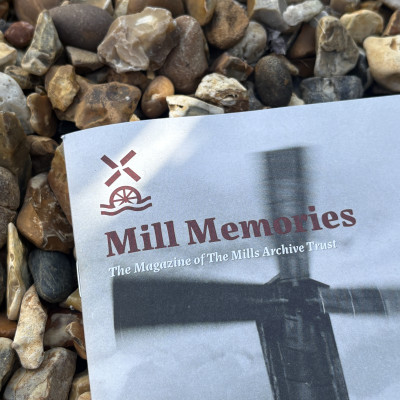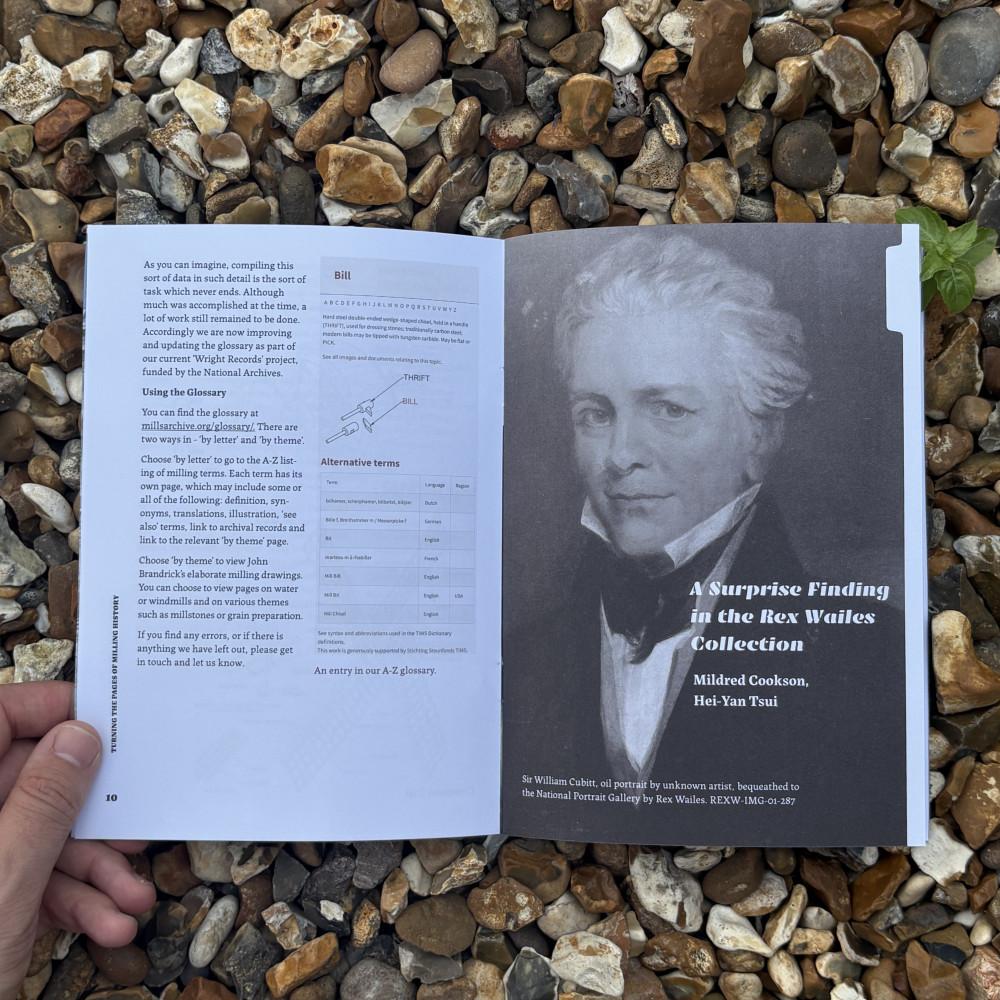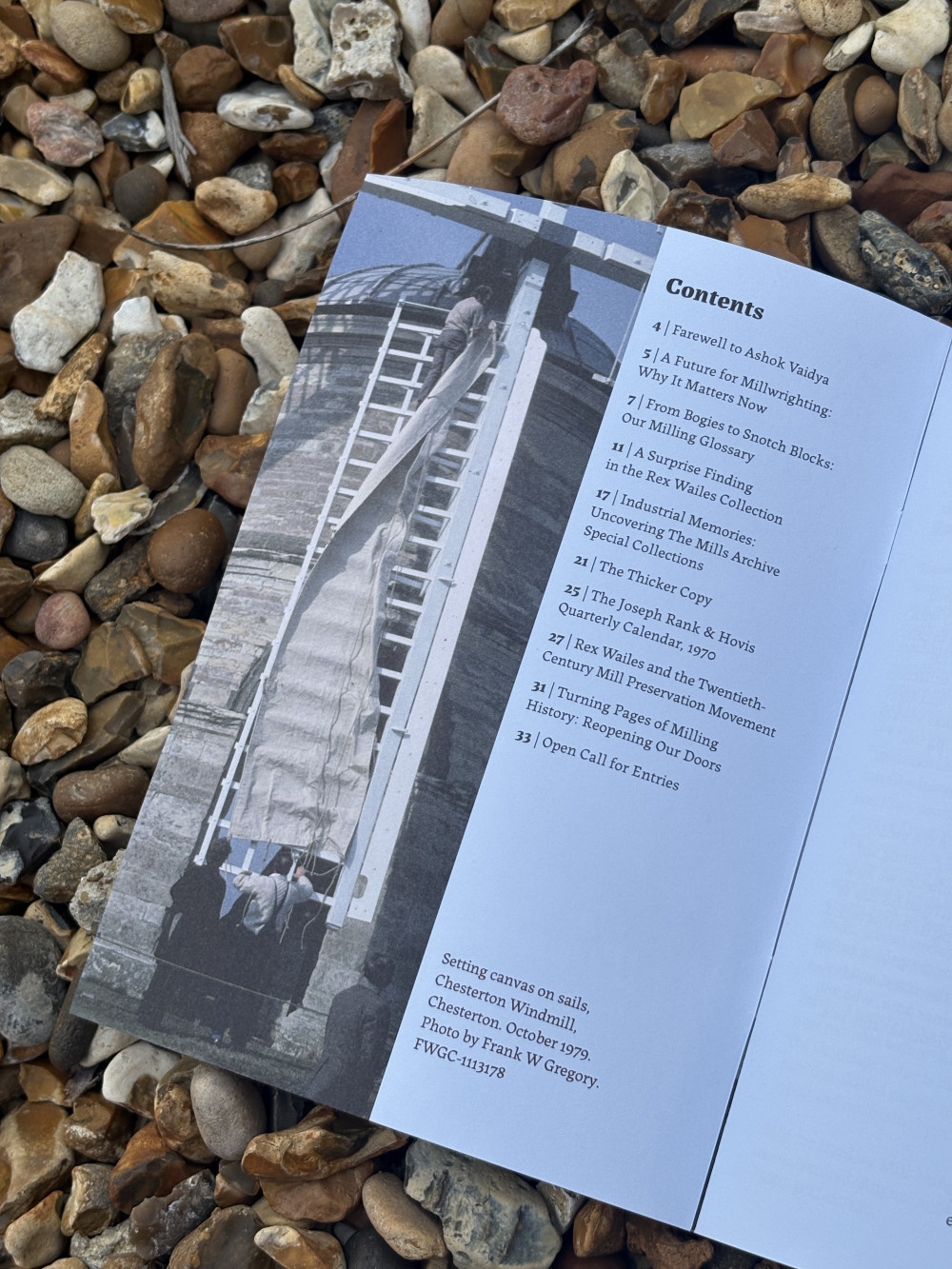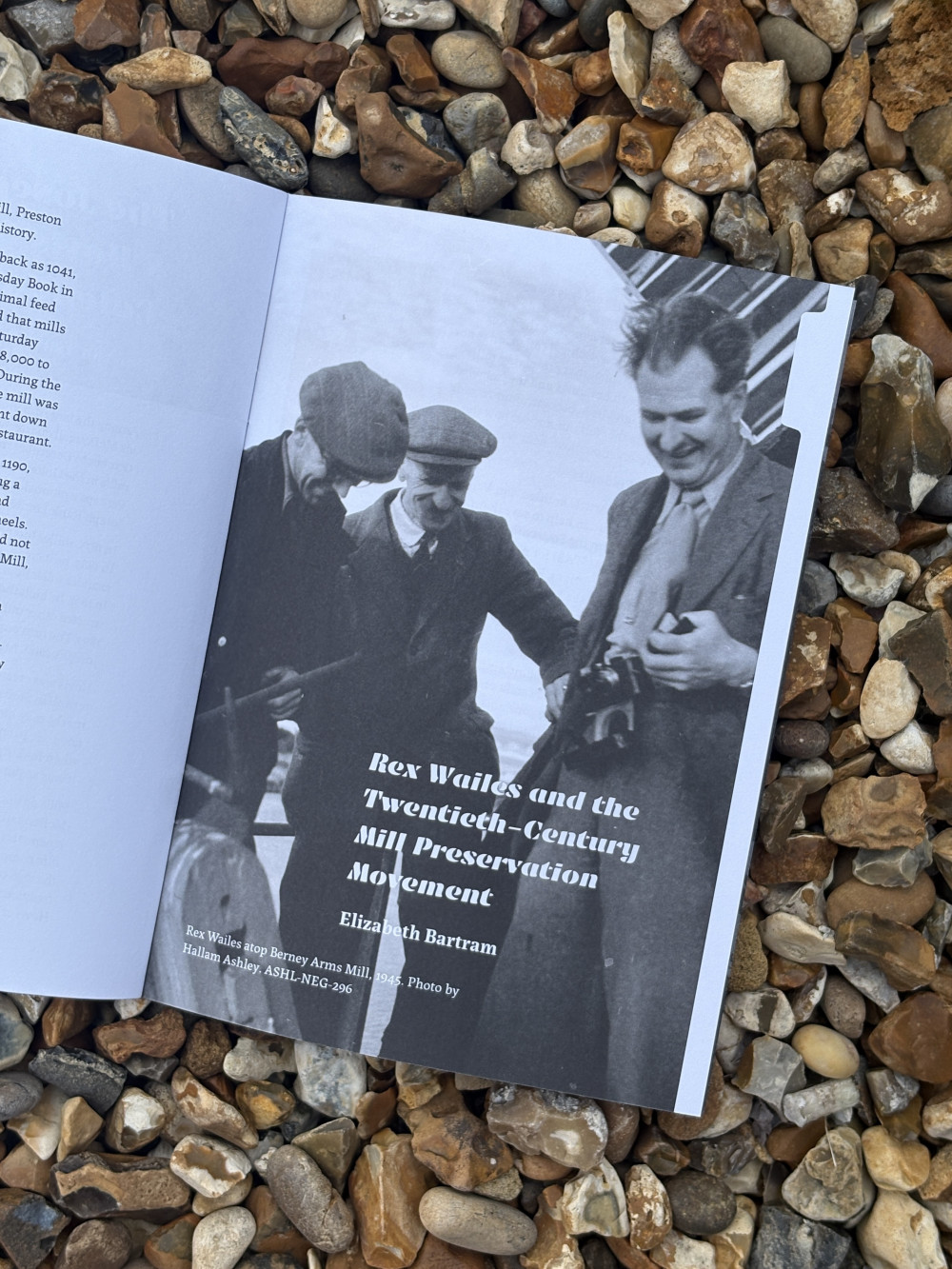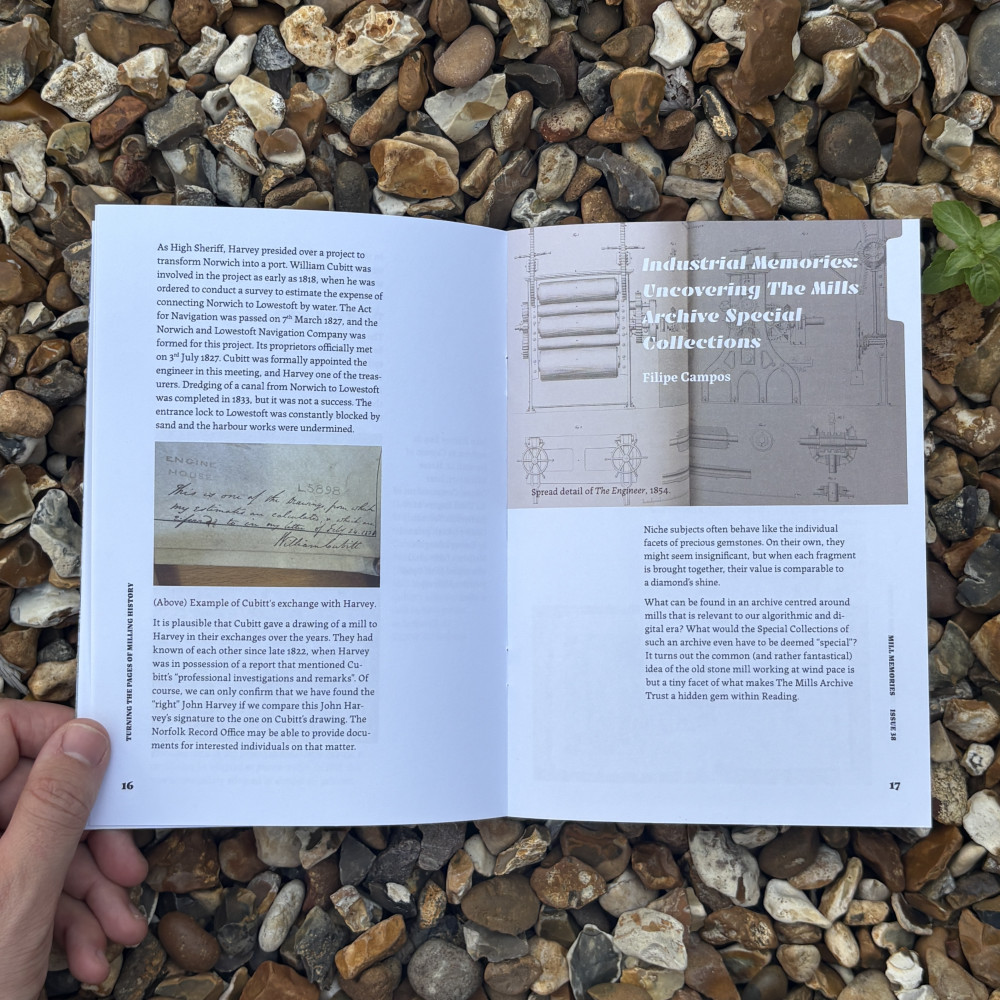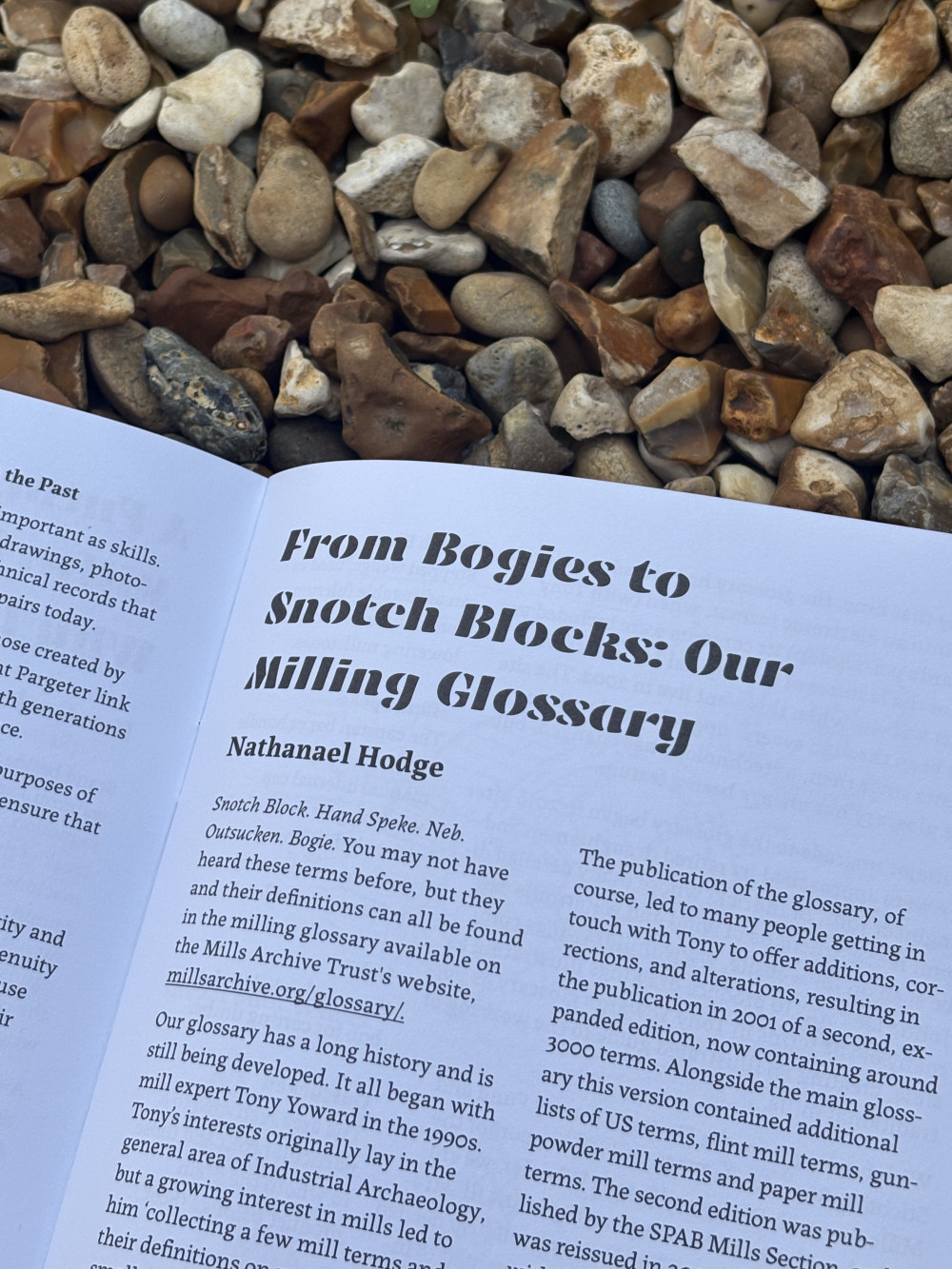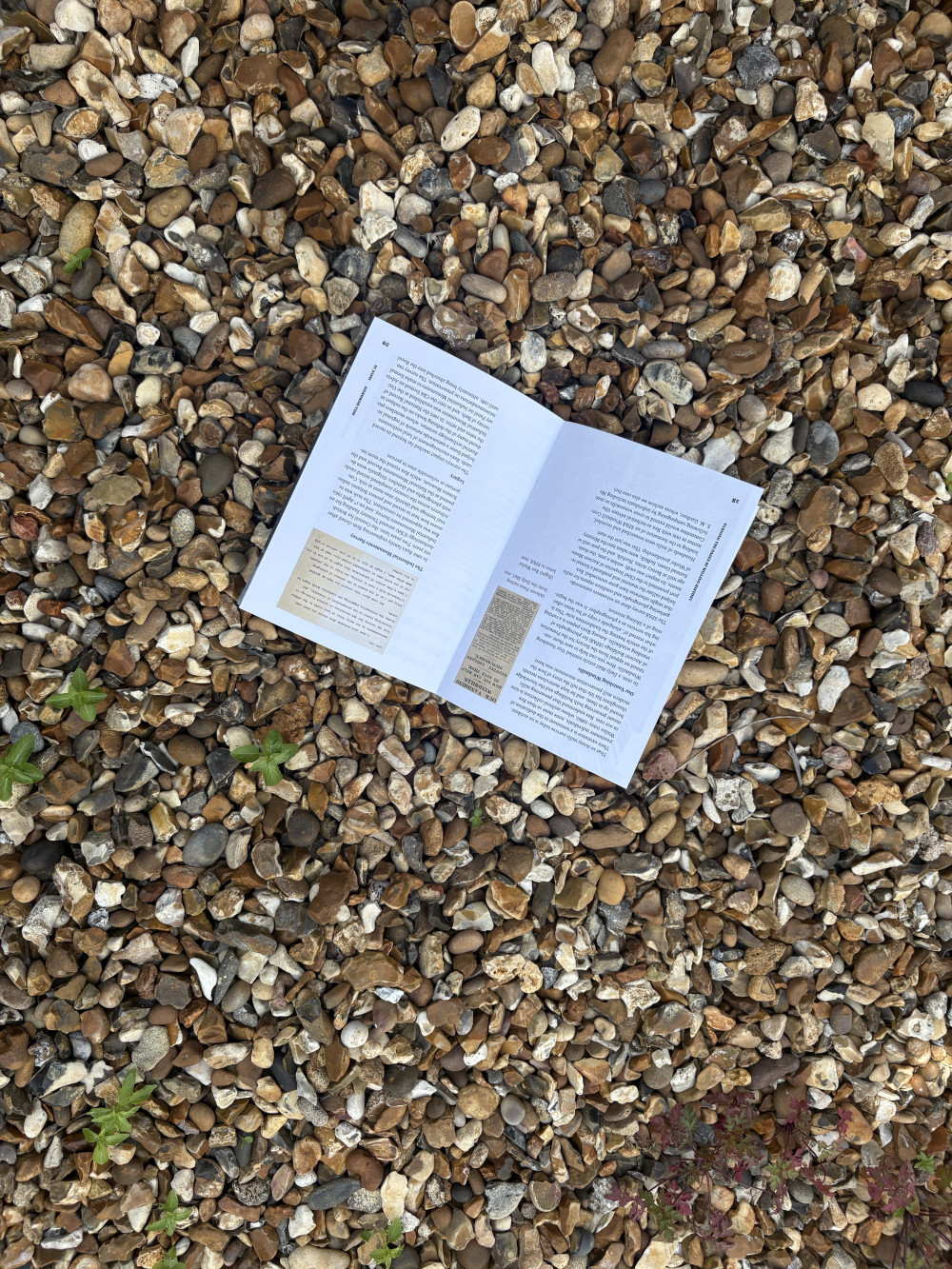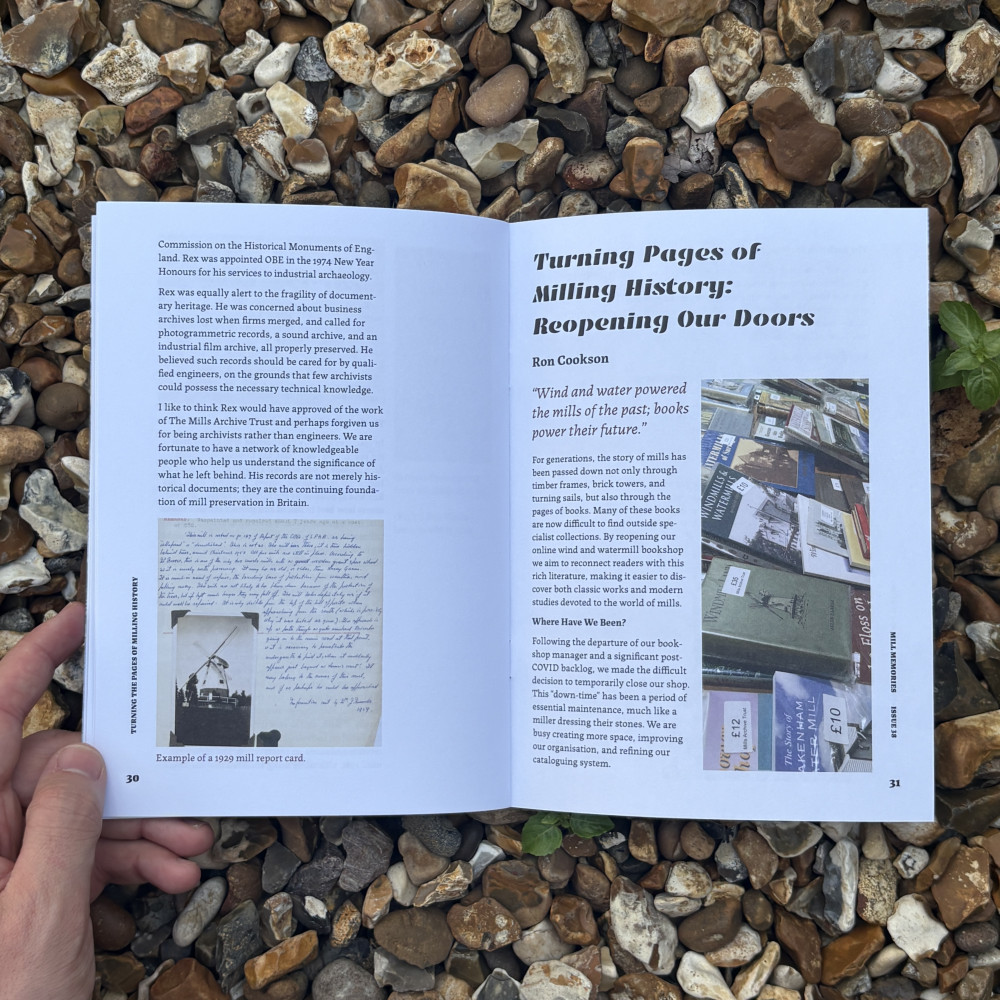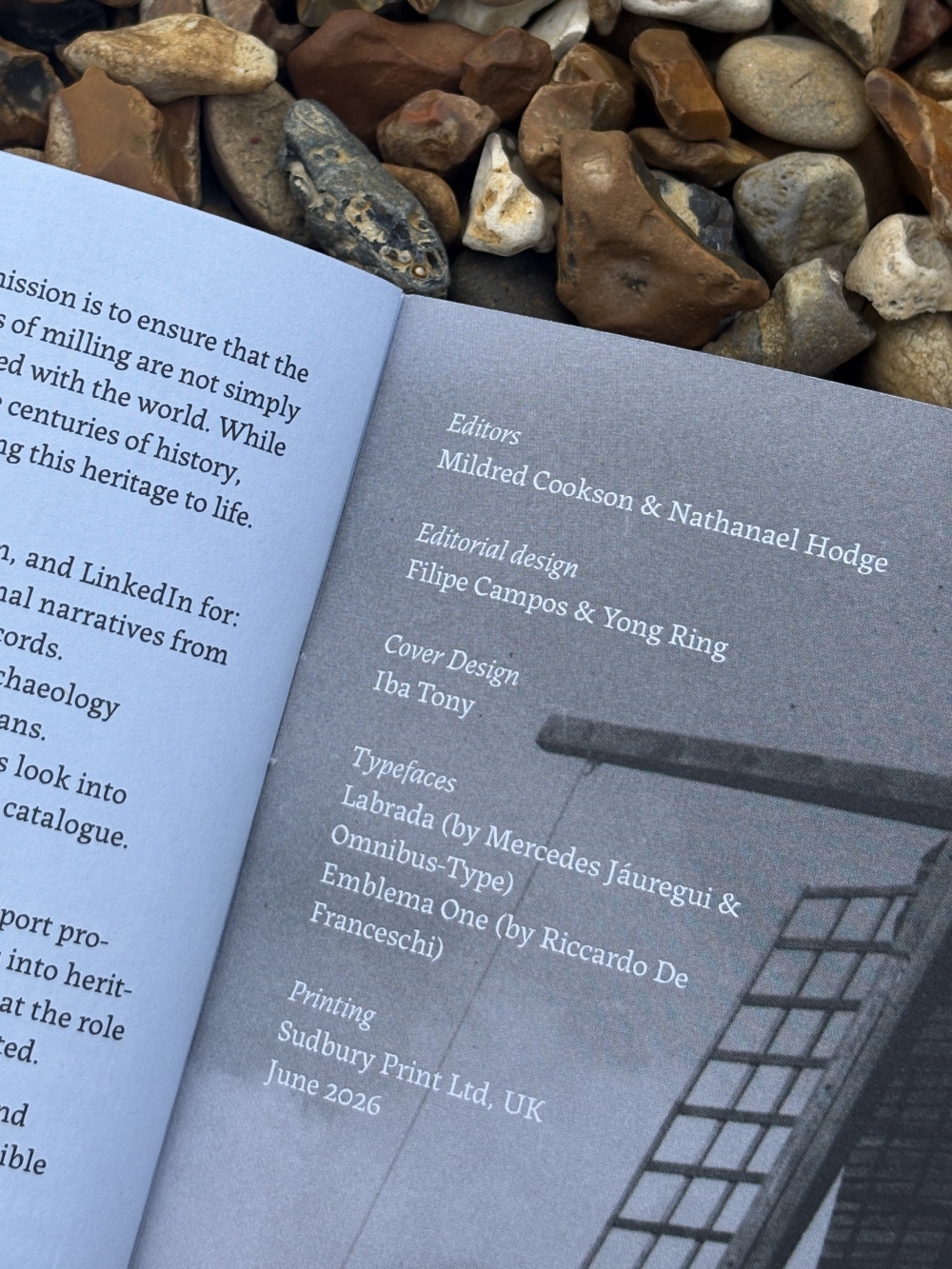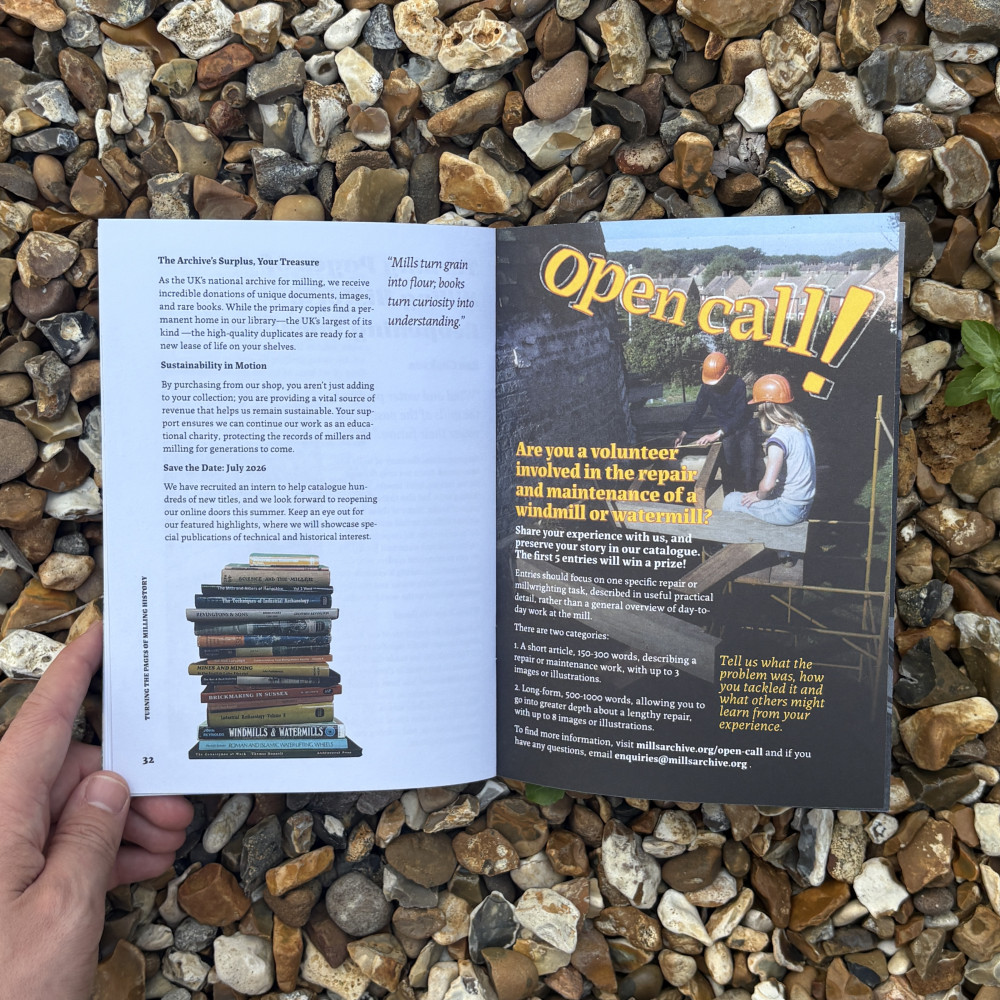
Mill Memories Magazine
Mill Memories is the seasonal magazine published by The Mills Archive Trust, an archival institution specialised on the preservation of milling history and future of renewable energy. Located in Reading, the archives were looking for the redesign for their upcoming 38th issue, released in June 2026.
Alongside Yong Ring and their in-house designer, Iba Tony, the brief asked for a fresh look to their existing design, while maintaining continuity with their established format and readership experience.
The new design keeps the strong photographic character of the magazine - filled with its typical mills and old pictures - and explores a simple, almost academic typesetting of its contents. It then balances this formal skeleton with modern typeface pairings for a more contemporary look.
Cover and backcover, designed by Iba Tony.
Contents page.
Small article title page.
Main article title page.
Double page spread of running text.
Detail of small article title page.
Highlight announcement page.
Secondary version of a main article title page
Detail of main article title page.
Magazine's colophon and credits.